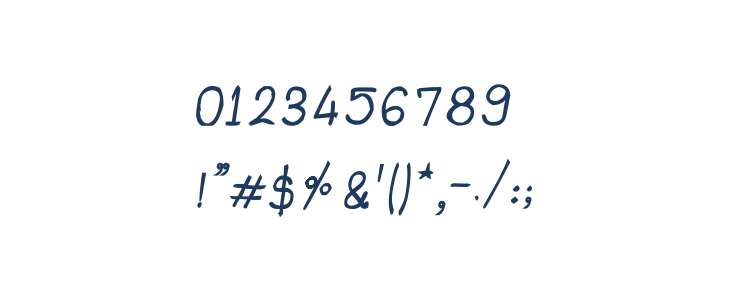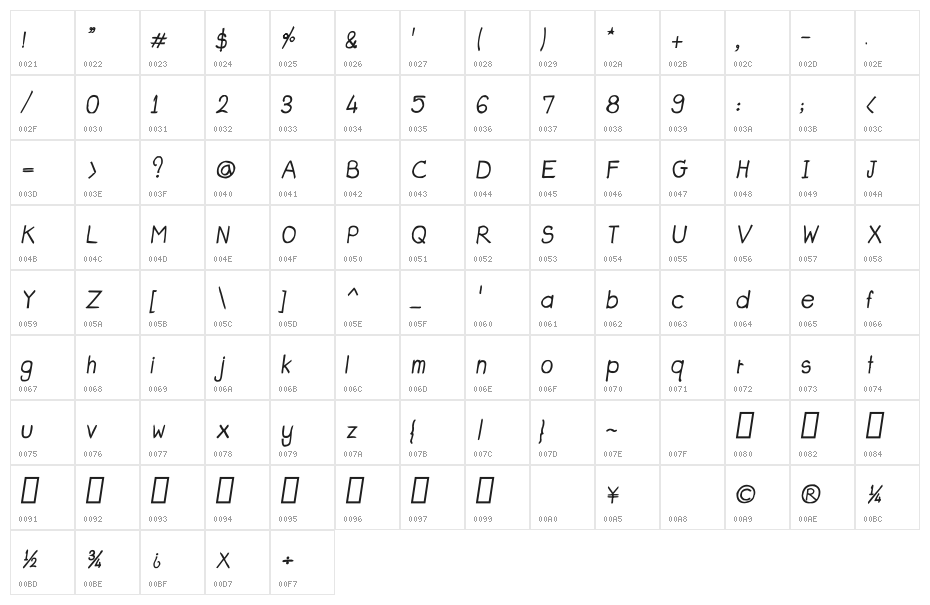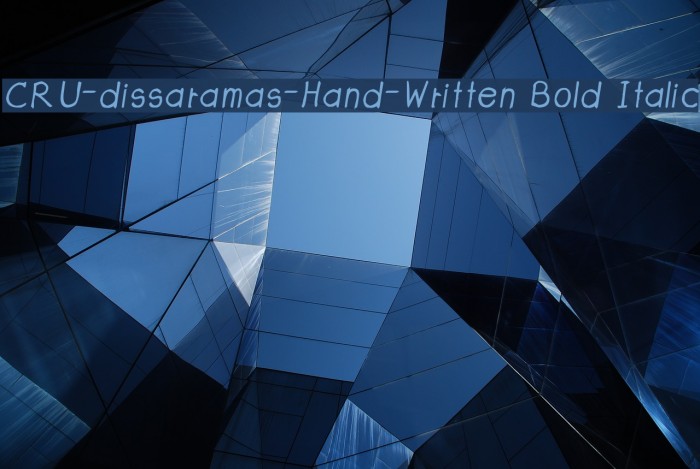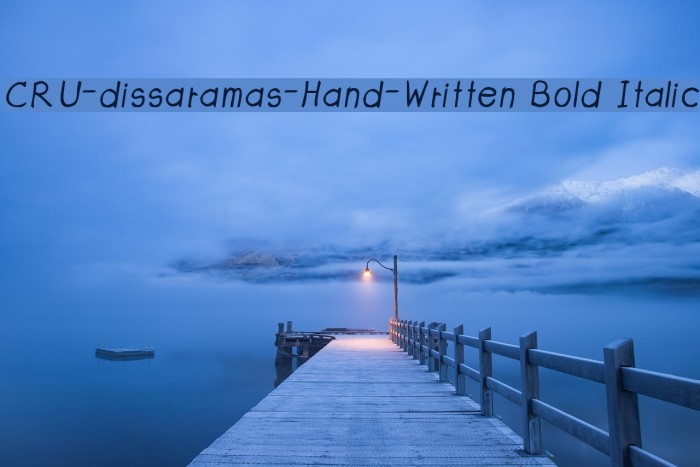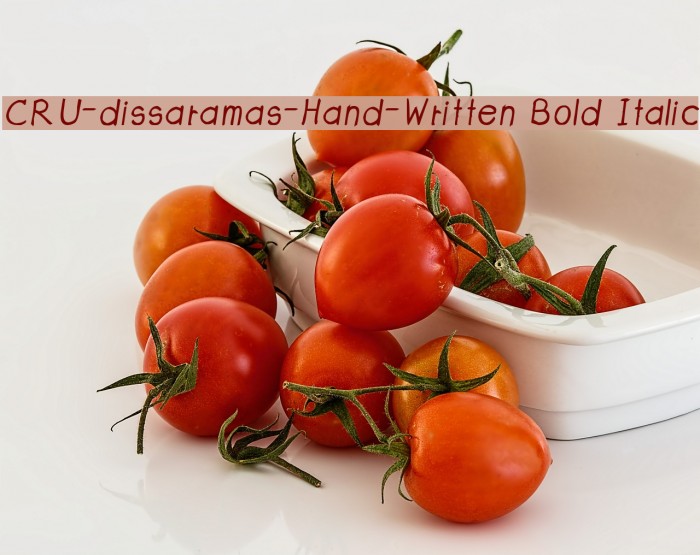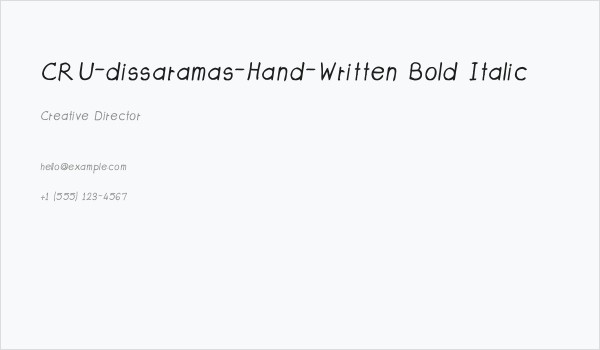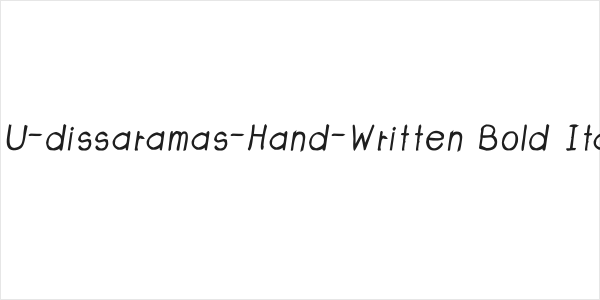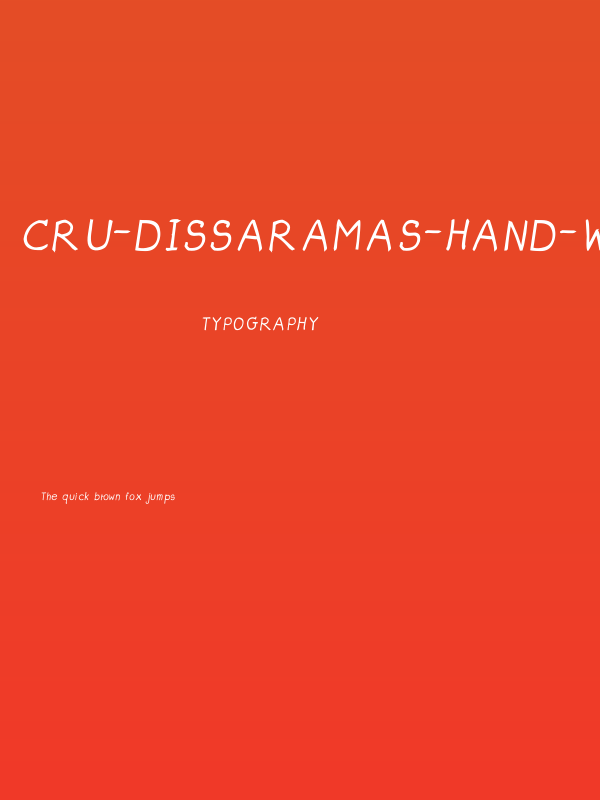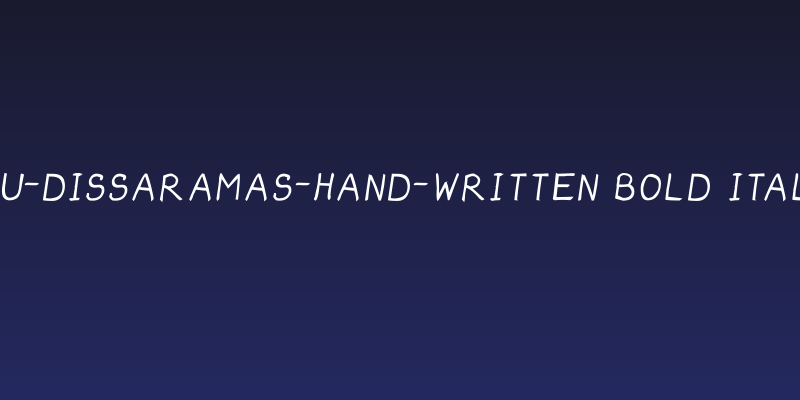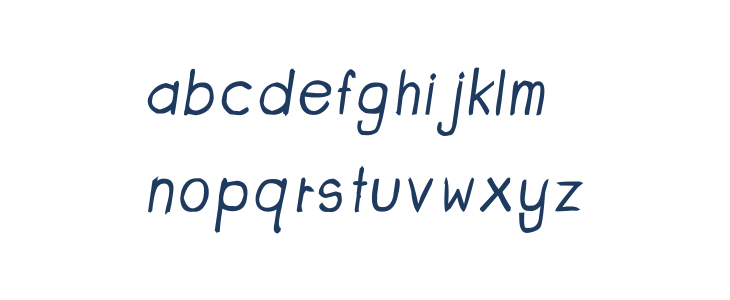
CRU-dissaramas-Hand-Written Bold Italic Font
CRU-dissaramas-Hand-Written Bold Italic Description
This font exudes a casual and personal touch with its handwritten style, characterized by a bold and italicized appearance. The letters are slightly slanted, giving a dynamic and fluid feel, while maintaining a consistent thickness throughout. The uppercase and lowercase letters are well-proportioned, with a playful yet legible design. Numbers and special characters follow the same style, ensuring uniformity across all elements. The overall look is approachable and friendly, making it suitable for projects that require a personal or informal tone.